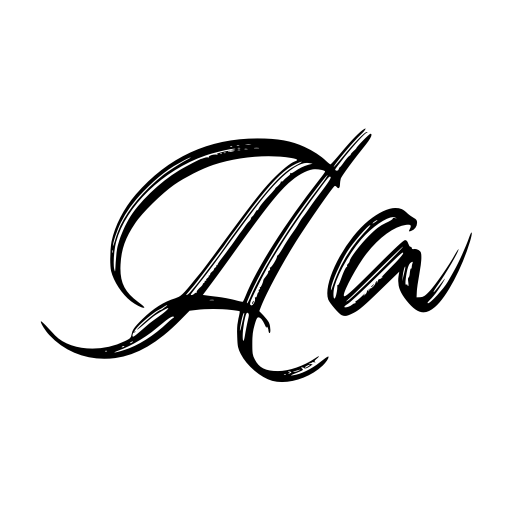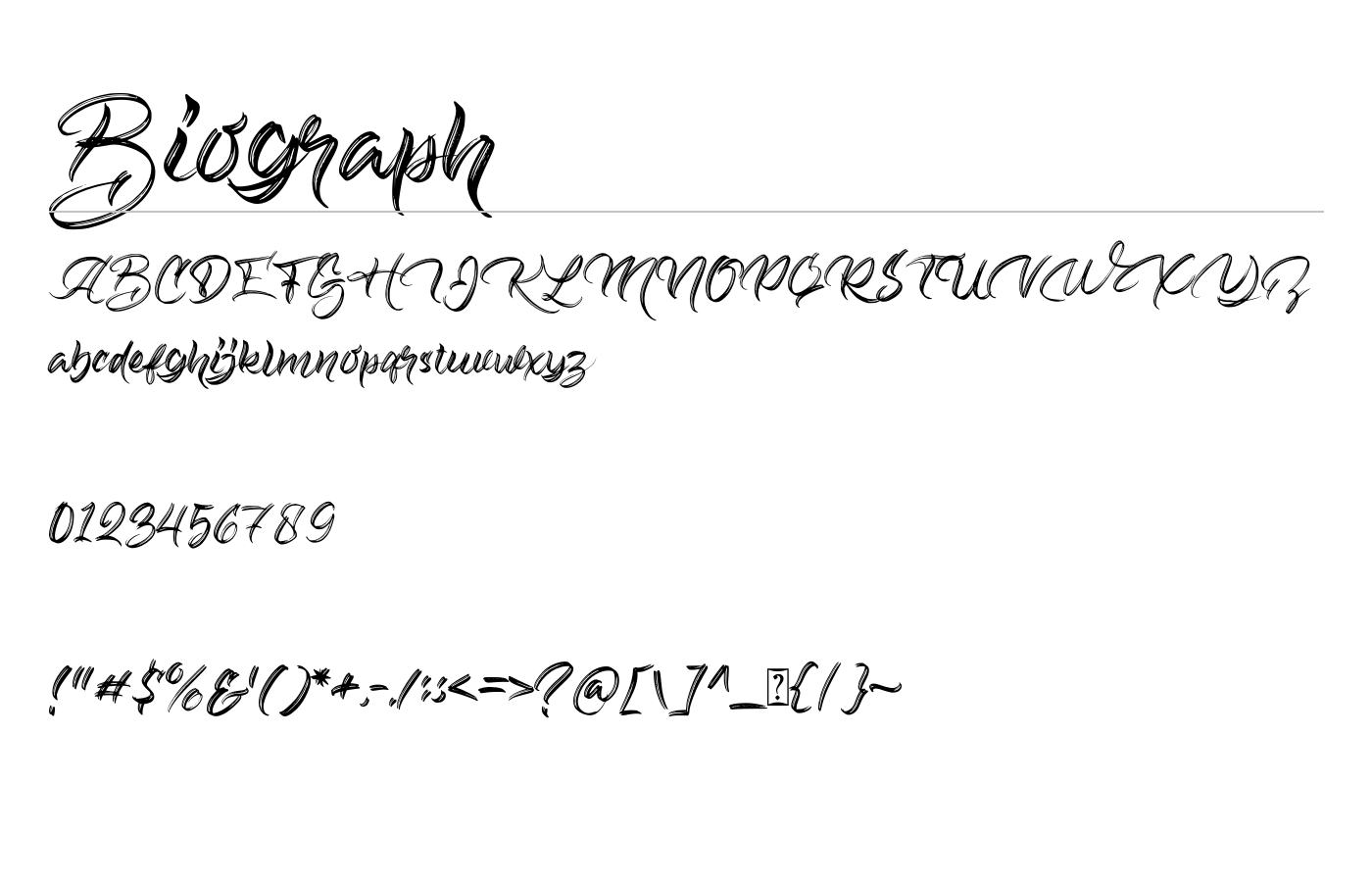
Biograph is a lively and artistic script font characterized by its brushstroke-like texture and dynamic, flowing letterforms. Its irregular lines and expressive style evoke a hand-painted feel, making it perfect for creative and personal branding, invitations, or projects that need a touch of individuality and sophistication. This font works best in display contexts where its unique personality can stand out and add a handcrafted, energetic vibe.
Biograph Font
About Biograph Font
| Font family | Biograph Font |
| Designer | Icep A. Fadhil |